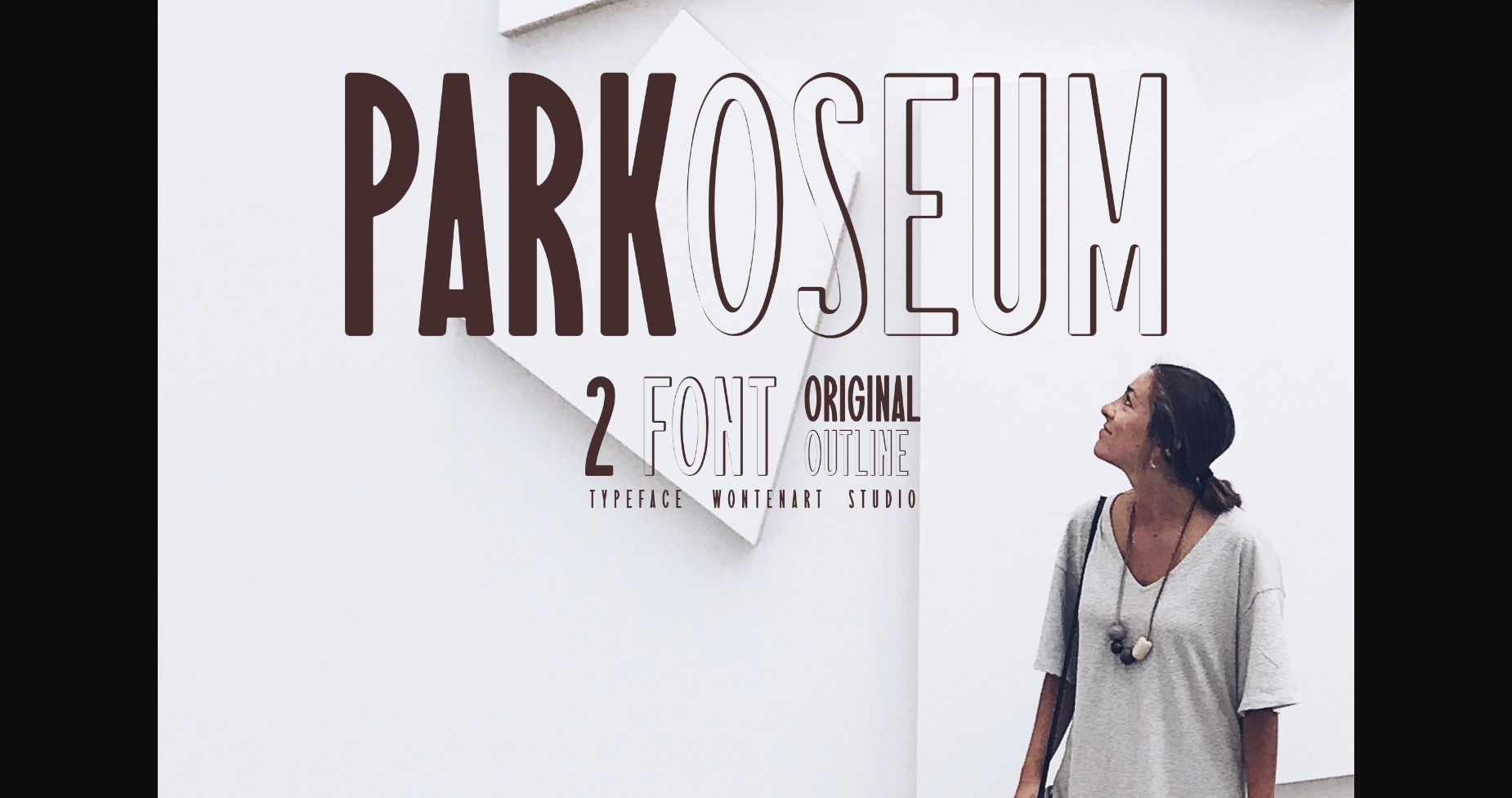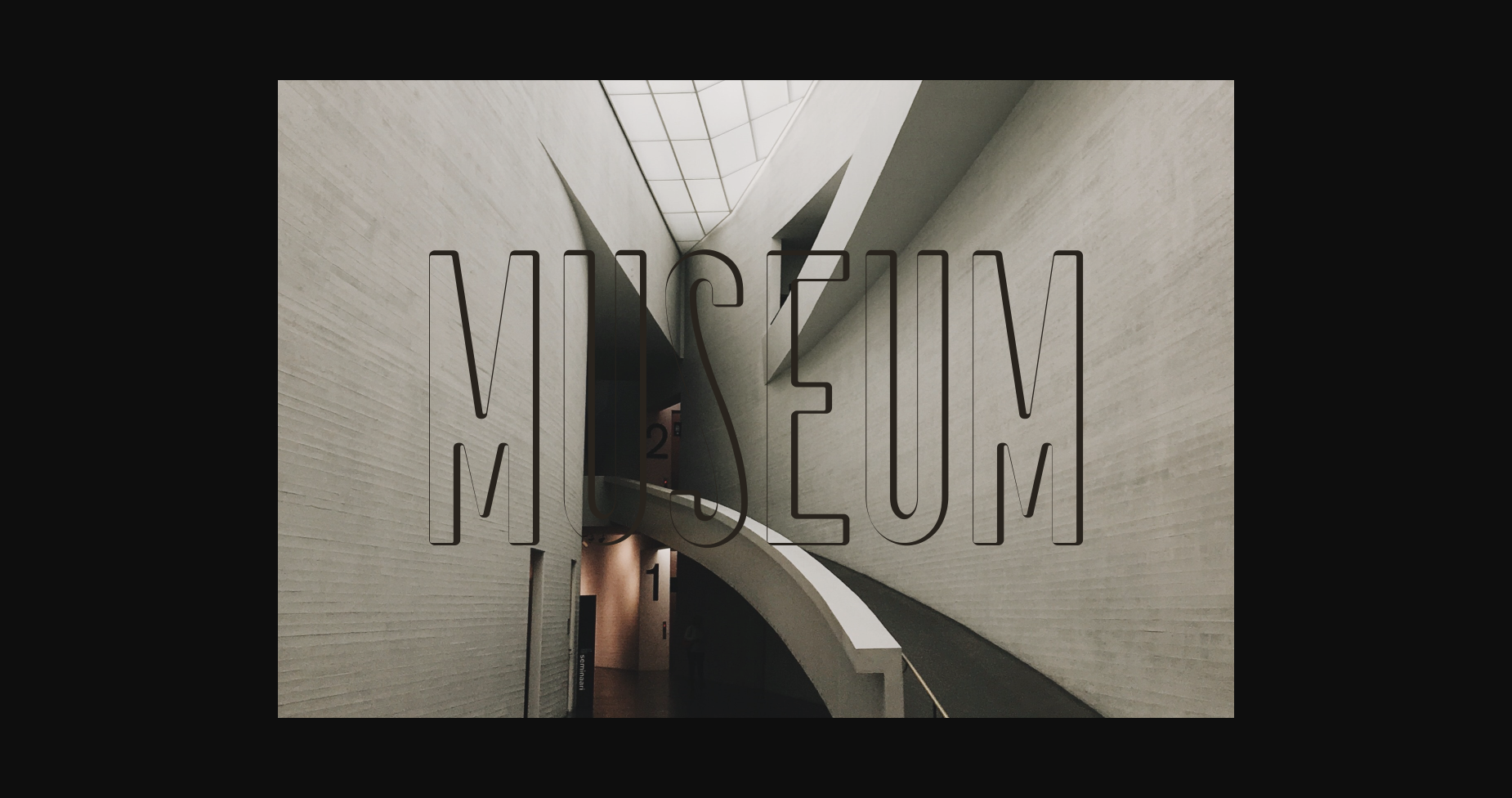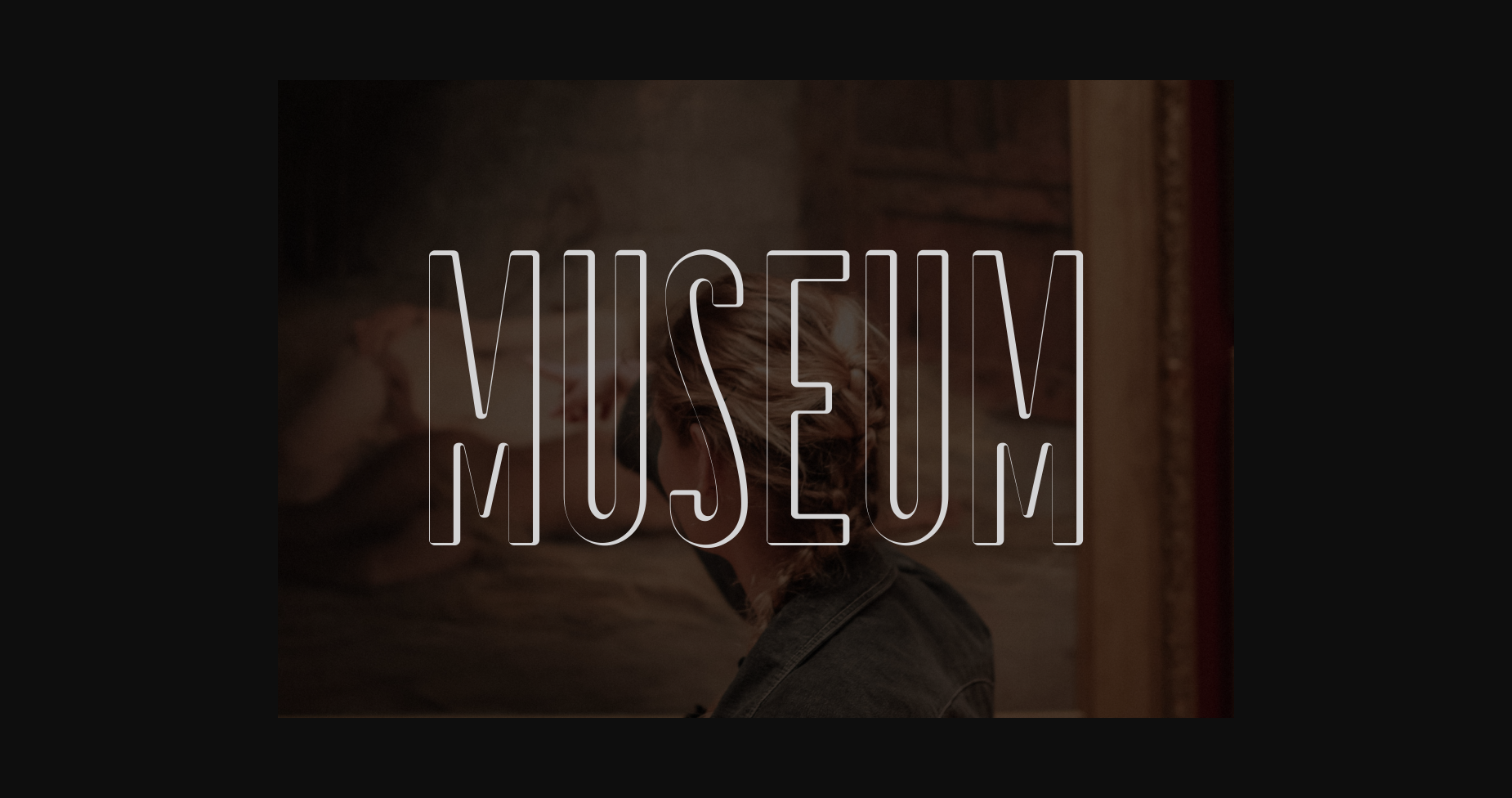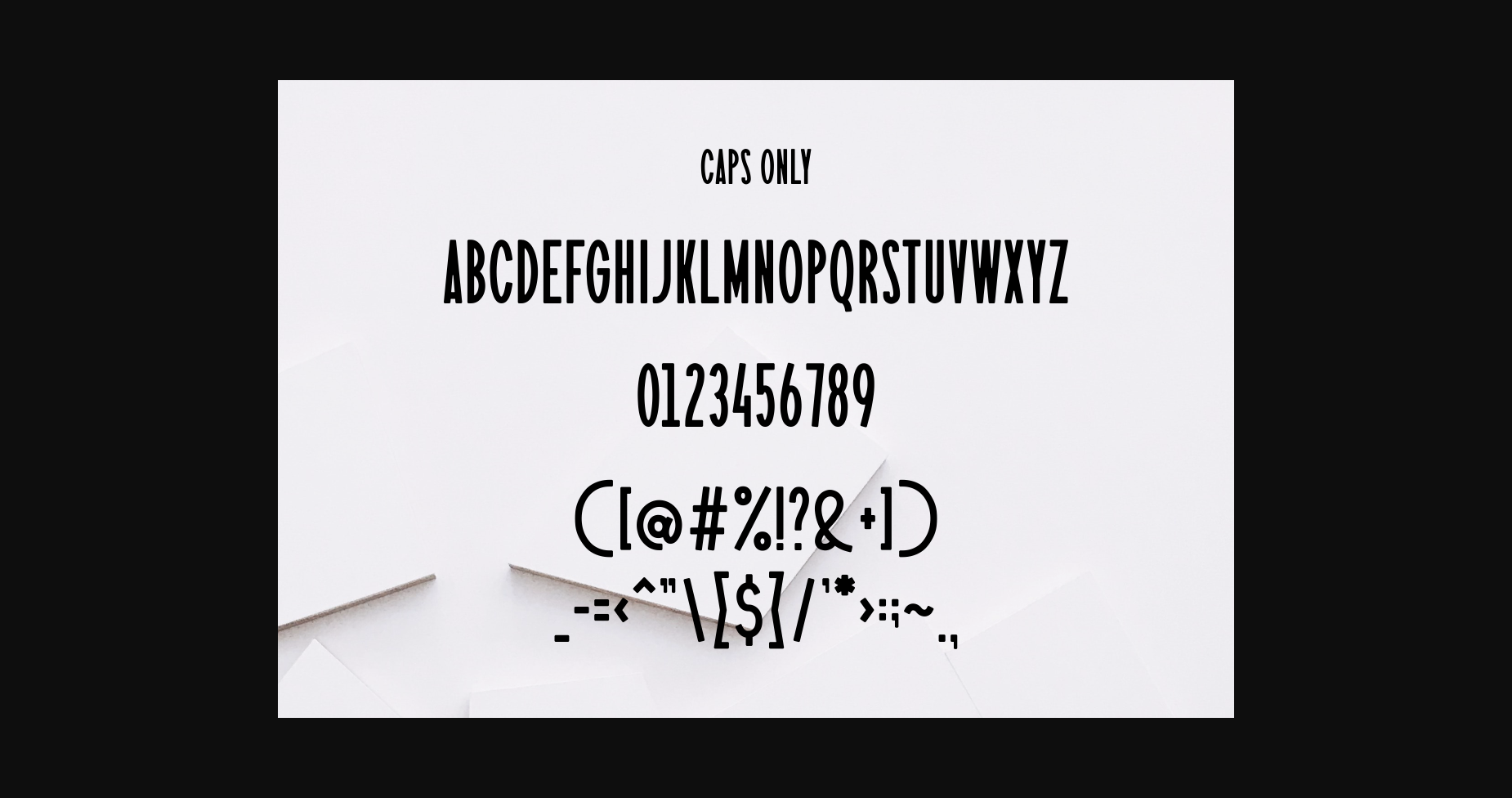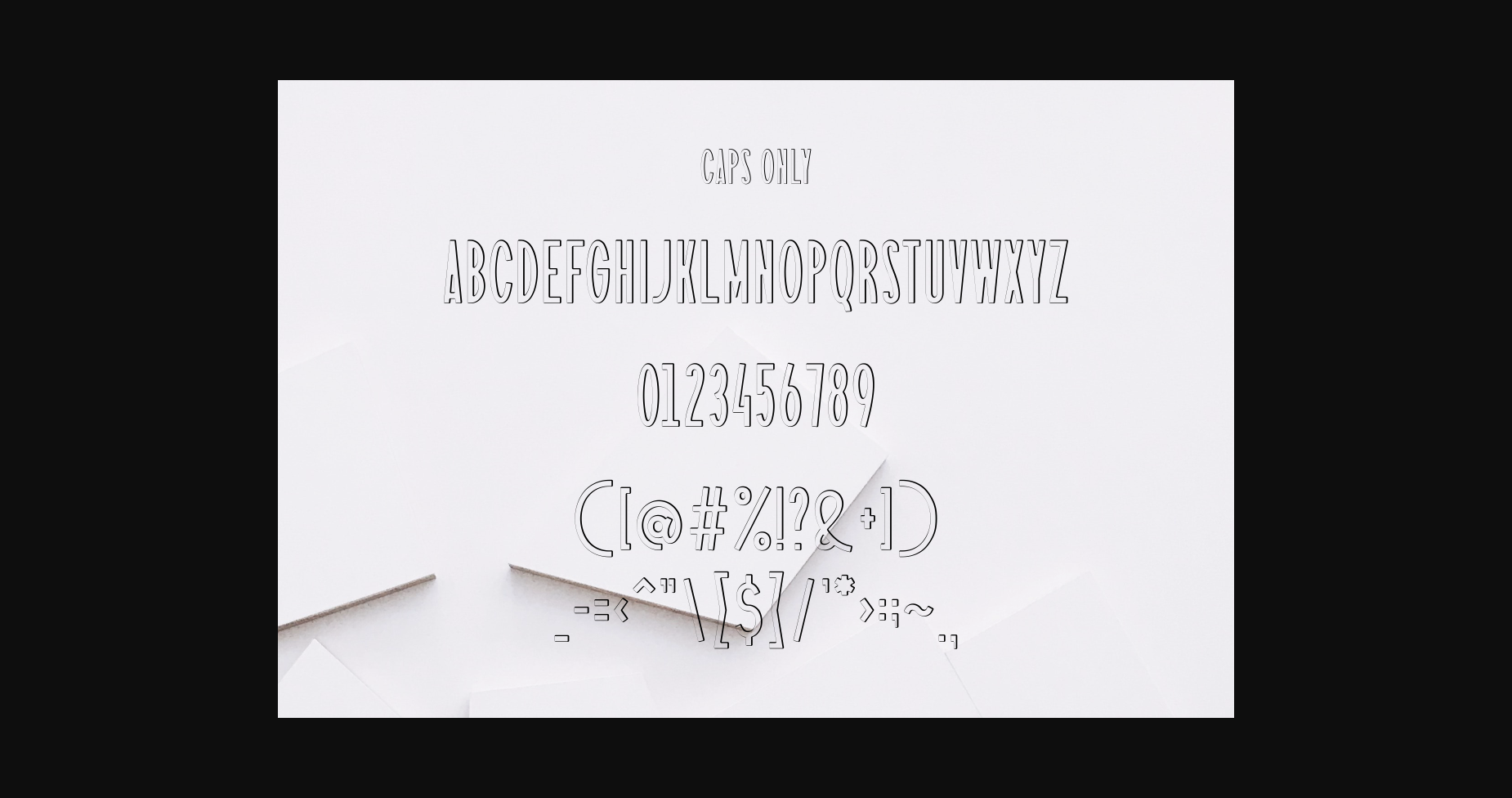
About Parkoseum Font
Parkoseum is an elegant serif display font, that features a very delicate and classy look. Not too thin and not too thick, balanced and varied, Parkoseum was designed to
enhance the beauty of your projects.